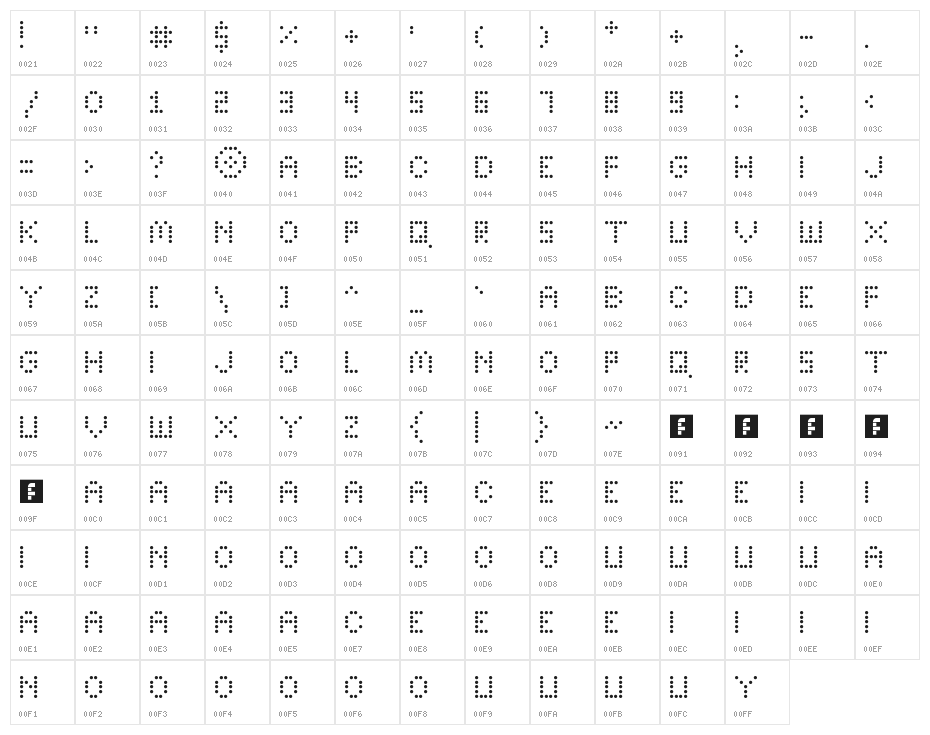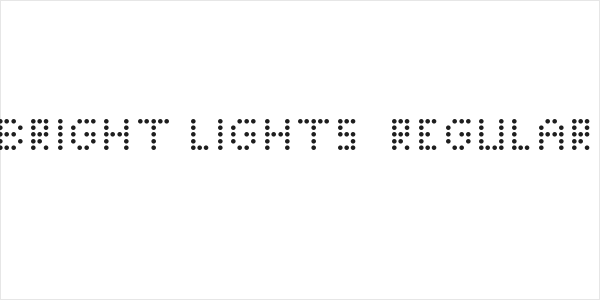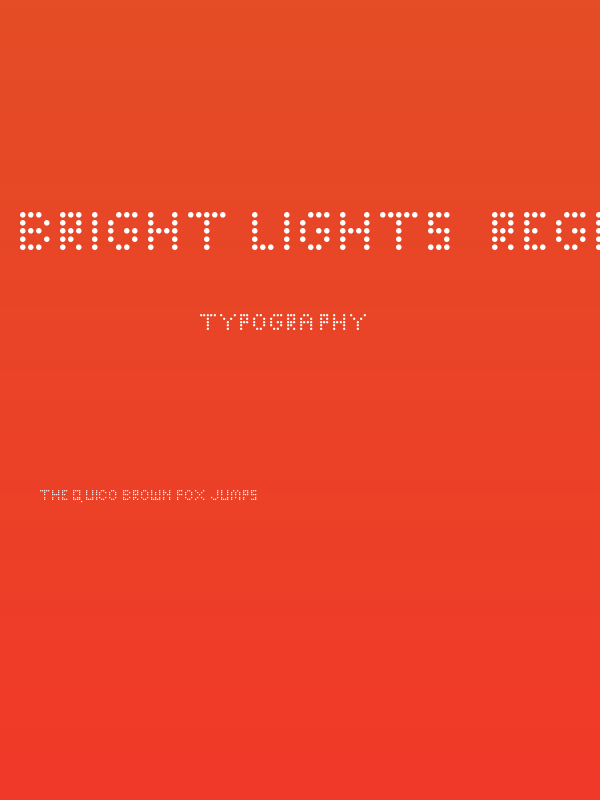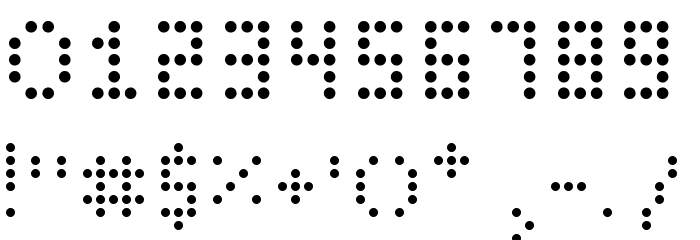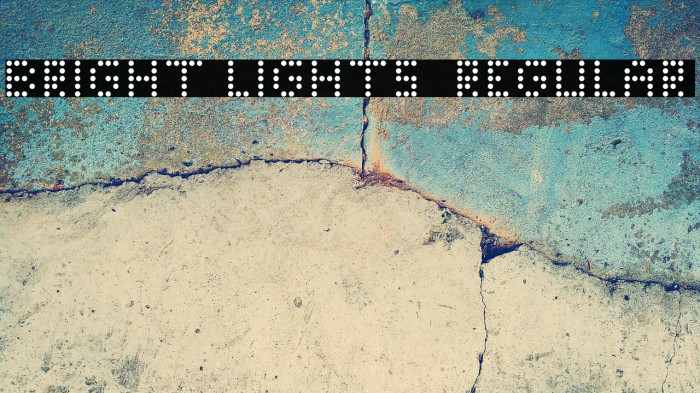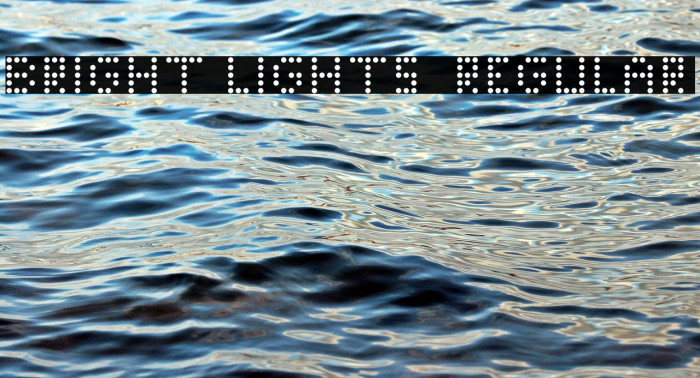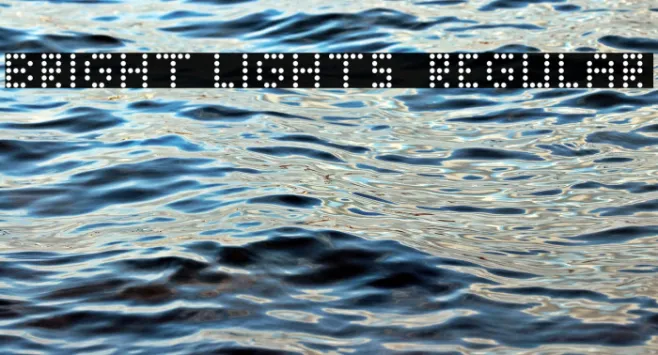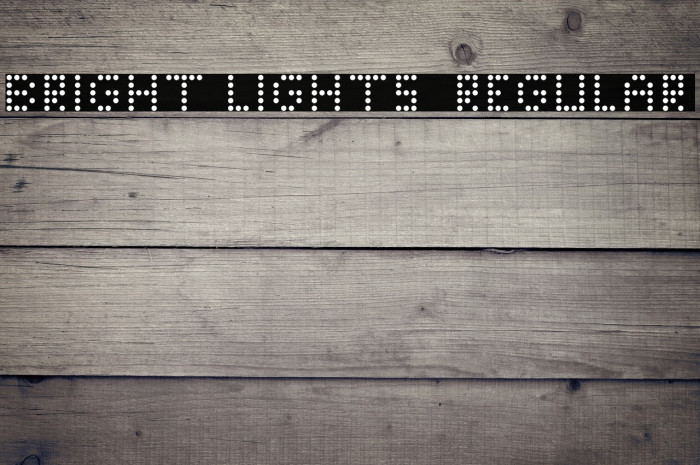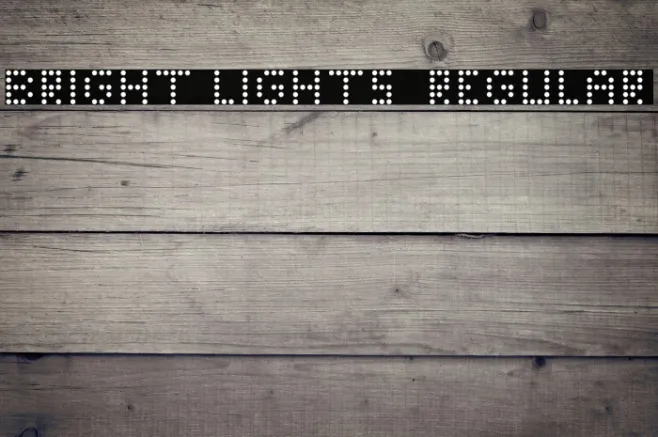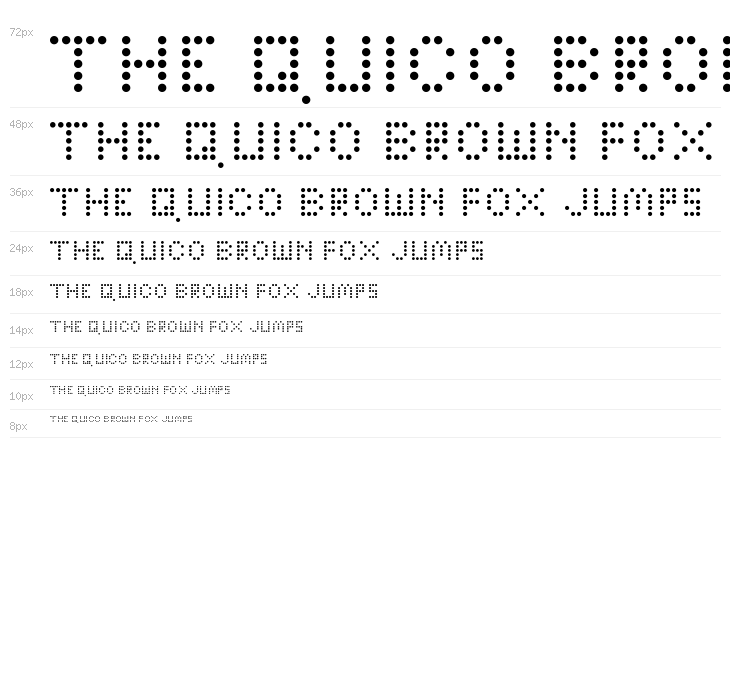
Bright Lights Regular Font
Bright Lights Regular Description
This font features a unique dot matrix style, where each character is composed of a series of evenly spaced dots. The design is reminiscent of retro digital displays, offering a modern twist on classic pixelated typography. The characters are uniform in size and spacing, creating a cohesive and structured appearance. This font is particularly eye-catching and can add a playful yet sophisticated touch to any project. Its geometric nature makes it highly legible, even at smaller sizes, while the dotted style adds a layer of visual interest.
| Proposed Projects | Ideal for digital-themed projects, retro designs, tech branding, and creative posters. |